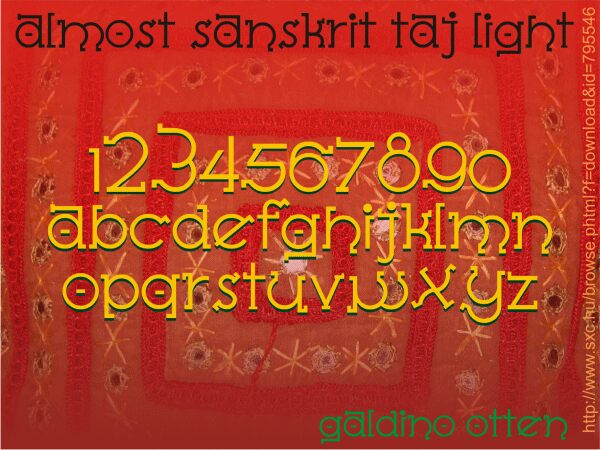
Almost Sanskrit taj Bold by Galdino Otten is a free geometric display font built from modular strokes. Circular forms meet squared joins and abrupt cut-ins, giving the lettering a machine-made silhouette with a few sharp, unexpected turns.
It can turn a brand name into a compact techno emblem. That blocky construction also suits electronic music posters, game graphics, and streetwear merchandise, where the letters can echo interface icons and industrial markings. For product branding, its circles, bars, and clipped angles offer a recognizable system for labels and packaging.